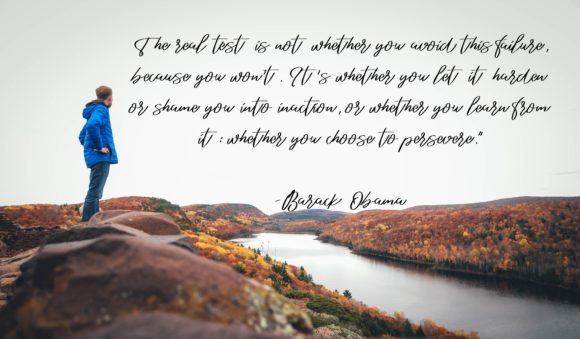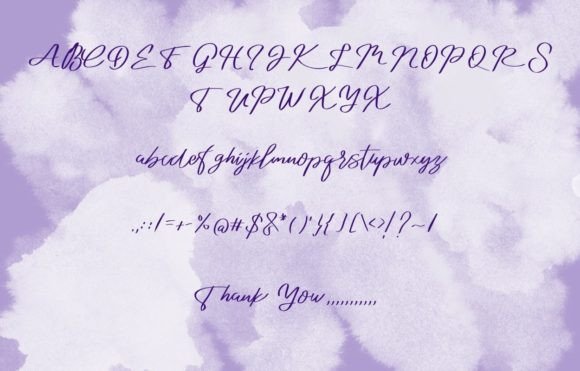
Introducing Abelard Font: Elevate Your Designs with a Slanted, Modern, and Expressive Script
In the world of typography, a well-crafted font can elevate your design from ordinary to extraordinary. Meet Abelard Font, a slanted, modern, and expressive script font that’s taking the design community by storm. With its unique blend of rough brush contrast strokes, fun characters, ligatures, and alternates, Abelard Font is the perfect tool for designers and crafters looking to add a touch of personality to their work.
What Makes Abelard Font Stand Out?
Abelard Font boasts a range of features that set it apart from other script fonts on the market. Here are just a few reasons why designers and crafters are falling in love with this font:
• Slanted and Modern Design: Abelard Font’s slanted design gives it a dynamic, energetic feel that’s perfect for creating eye-catching designs. Its modern aesthetic ensures it will fit right in with contemporary design trends.
• Rough Brush Contrast Strokes: The font’s rough brush contrast strokes add a touch of organic, hand-crafted charm to your designs. This feature is perfect for creating a sense of texture and depth.
• Fun Characters and Ligatures: Abelard Font comes with a range of fun, playful characters and ligatures that will add personality to your designs. From elegant swashes to quirky alternates, this font has everything you need to create unique and engaging text.
• Alternates and Variations: With Abelard Font, you’ll get access to a range of alternates and variations, allowing you to experiment with different styles and moods. This feature is perfect for designers who like to push the boundaries of creativity.
Perfect for a Range of Design Applications
Abelard Font is an incredibly versatile font that can be used for a wide range of design applications. Here are just a few ideas to get you started:
• Logo Design: With its unique blend of modern and playful elements, Abelard Font is perfect for creating eye-catching logos that stand out from the crowd.
• Social Media Graphics: Add a touch of personality to your social media graphics with Abelard Font. Its slanted design and fun characters make it perfect for creating engaging, shareable content.
• Movie and Book Titles: Abelard Font’s elegant, expressive design makes it perfect for creating stunning movie and book titles. Its rough brush contrast strokes add a touch of sophistication and glamour.
• Short and Long Text: Whether you’re working with short, snappy text or longer, more narrative text, Abelard Font is up to the task. Its clear, legible design ensures your message will get across in style.
Pairing Abelard Font with Other Fonts
One of the best things about Abelard Font is its versatility when it comes to pairing it with other fonts. Here are a few suggestions for pairing Abelard Font with sans serif and serif fonts:
• Sans Serif Fonts: Pair Abelard Font with a clean, modern sans serif font like Open Sans or Montserrat for a bold, contemporary look.
• Serif Fonts: Combine Abelard Font with a classic serif font like Georgia or Merriweather for a sophisticated, elegant look.